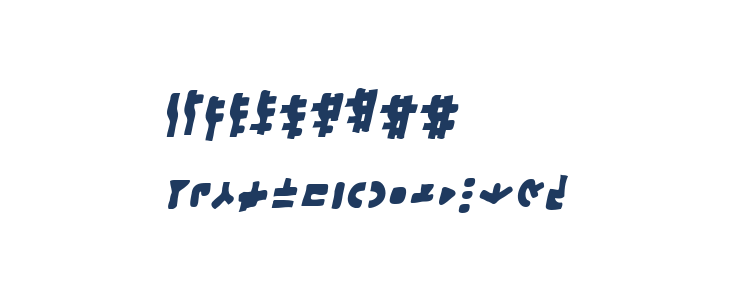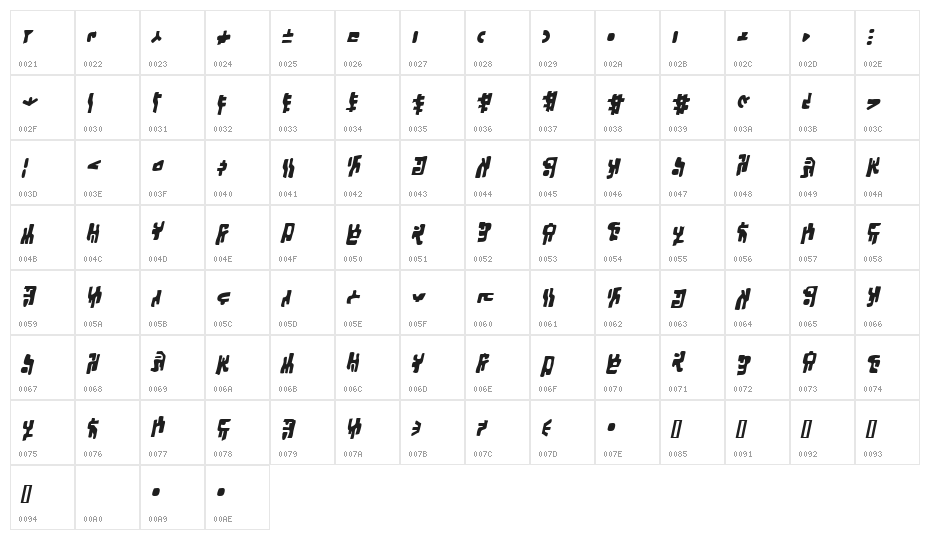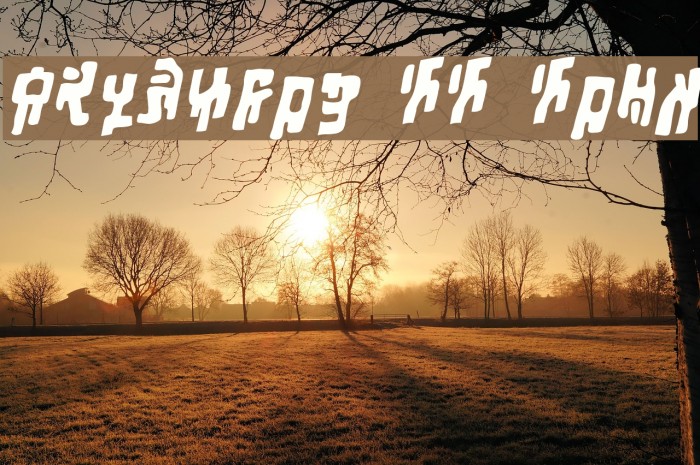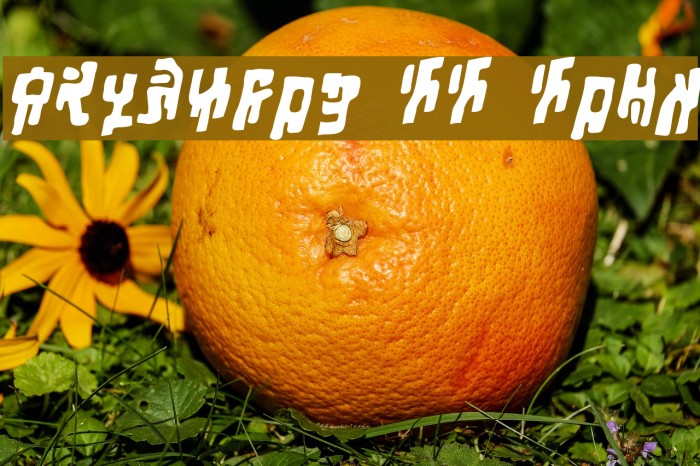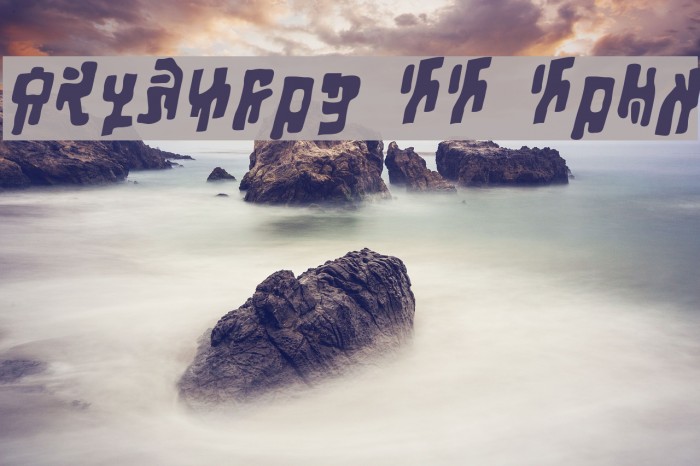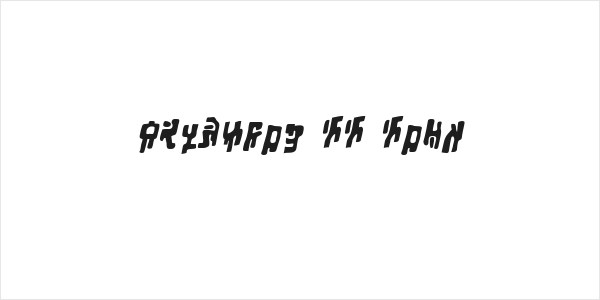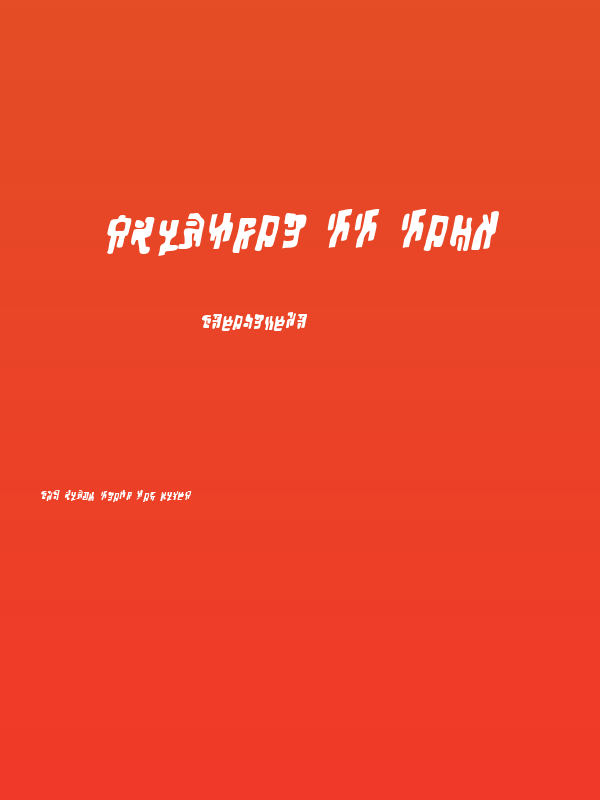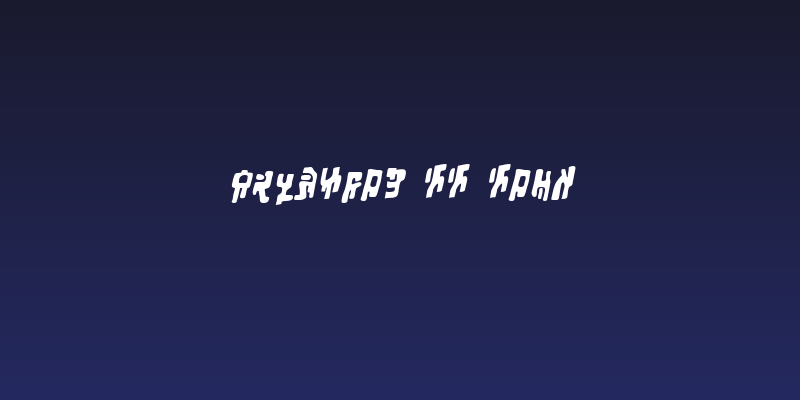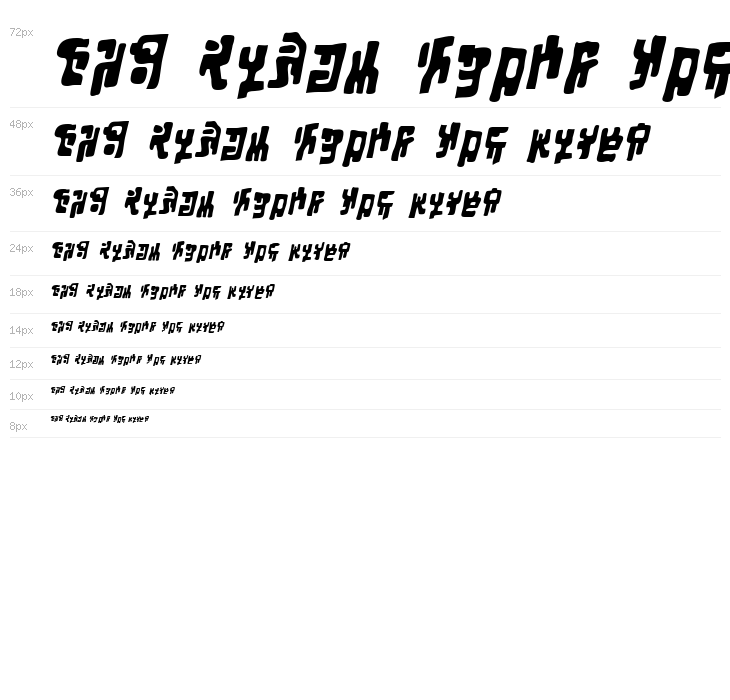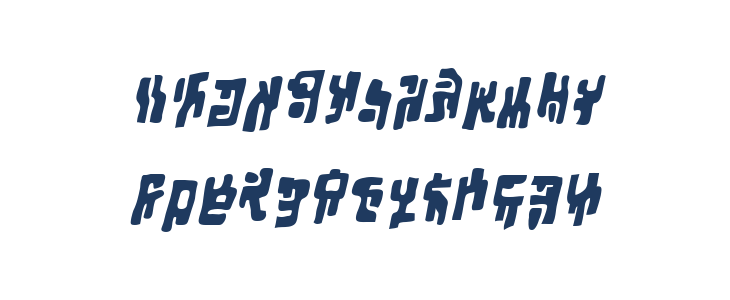
Squiznor BB Bold Font
Squiznor BB Bold Description
This font features a bold and dynamic style with a strong presence. The characters are heavily stylized, with thick strokes and a slightly slanted orientation, giving them a sense of movement and energy. The design is highly decorative, with unique shapes that make each letter stand out. The font's boldness is emphasized by its thick lines and the dramatic contrast between the strokes. The overall appearance is modern and eye-catching, suitable for projects that require a strong visual impact.
| Proposed Projects | Ideal for posters, logos, and headlines that need a strong visual impact. |